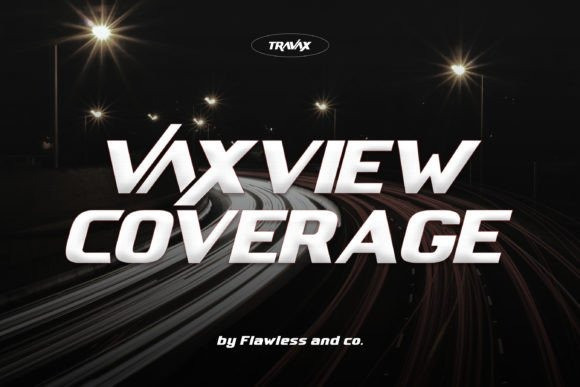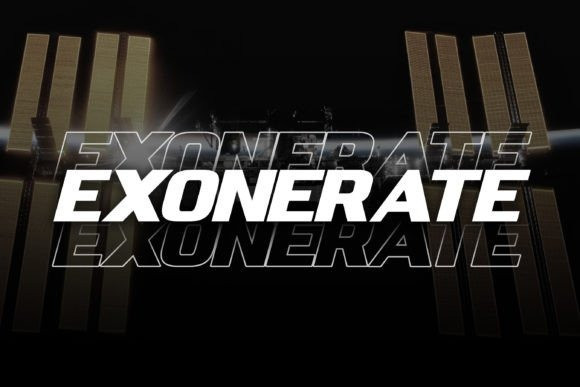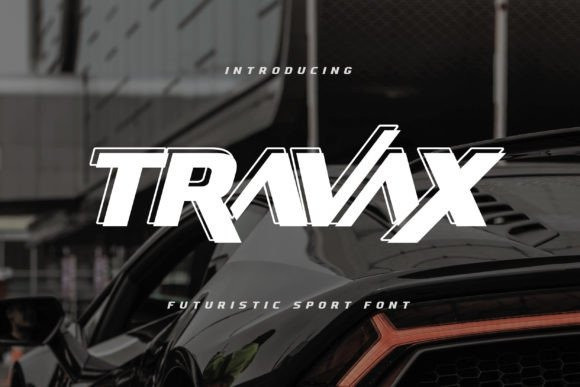
Travax Display Font
Travax Display Font  – A Futuristic Sport Font. Elevate your designs to new dimensions with “Travax,” a bold and futuristic sport font that embodies the spirit of progress and competition. With its sleek lines and dynamic forms, Travax seamlessly fuses modernity with athleticism, making it the ultimate choice for sports-related projects that demand a cutting-edge aesthetic.